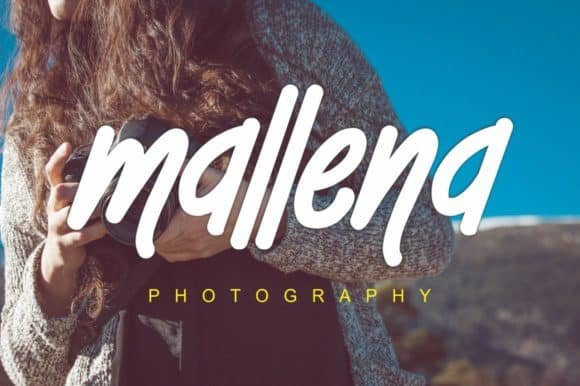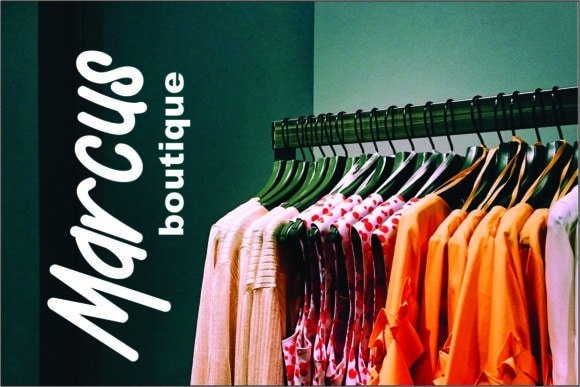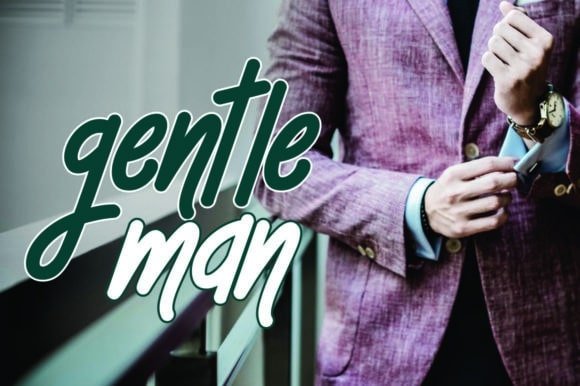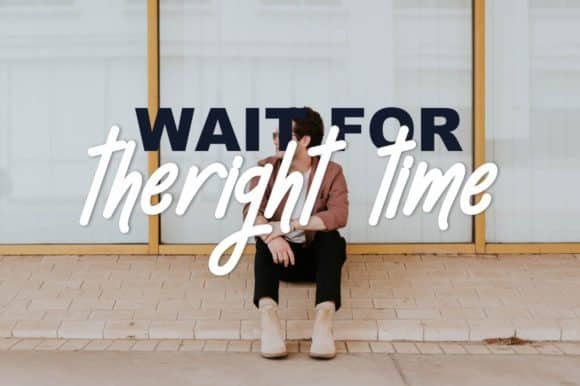
Mellow Font
Musafir LAB
Mellow is a simple yet elegant handwritten font that will add a handwritten feel to any design project! Add this lovely freebie to your creations and take your designs to the next level!